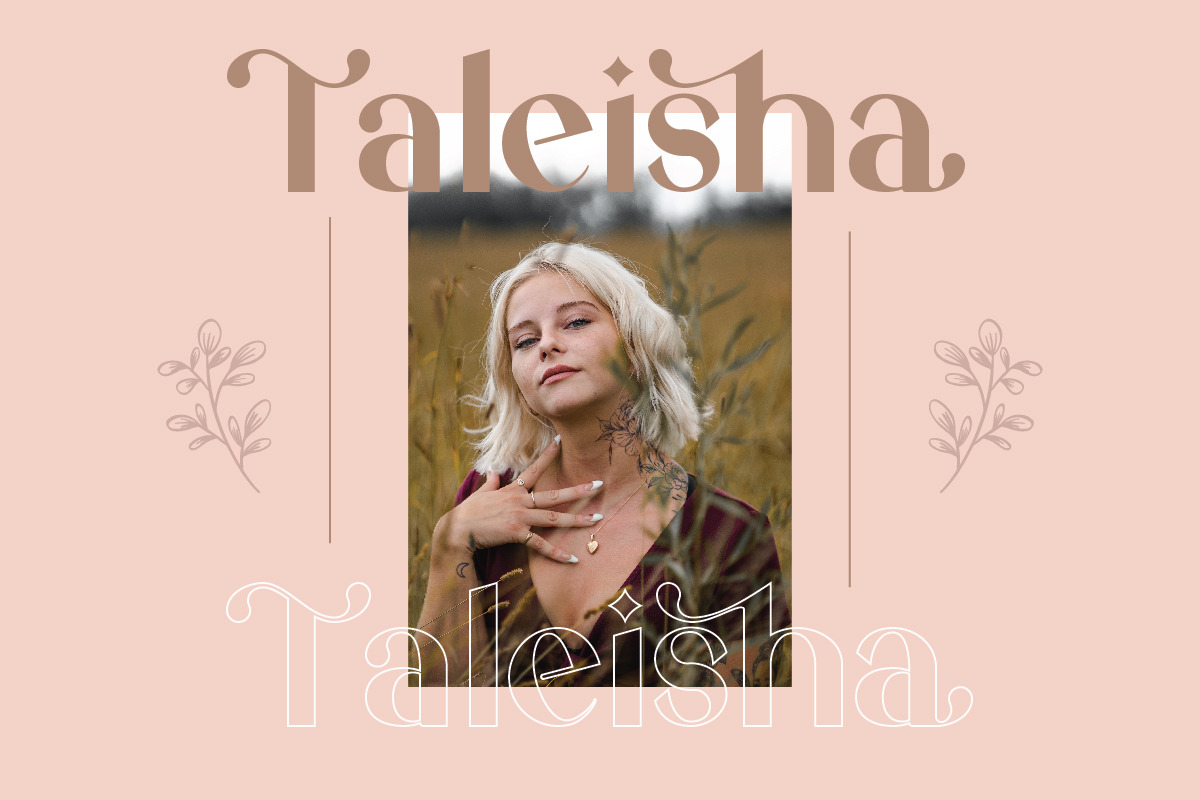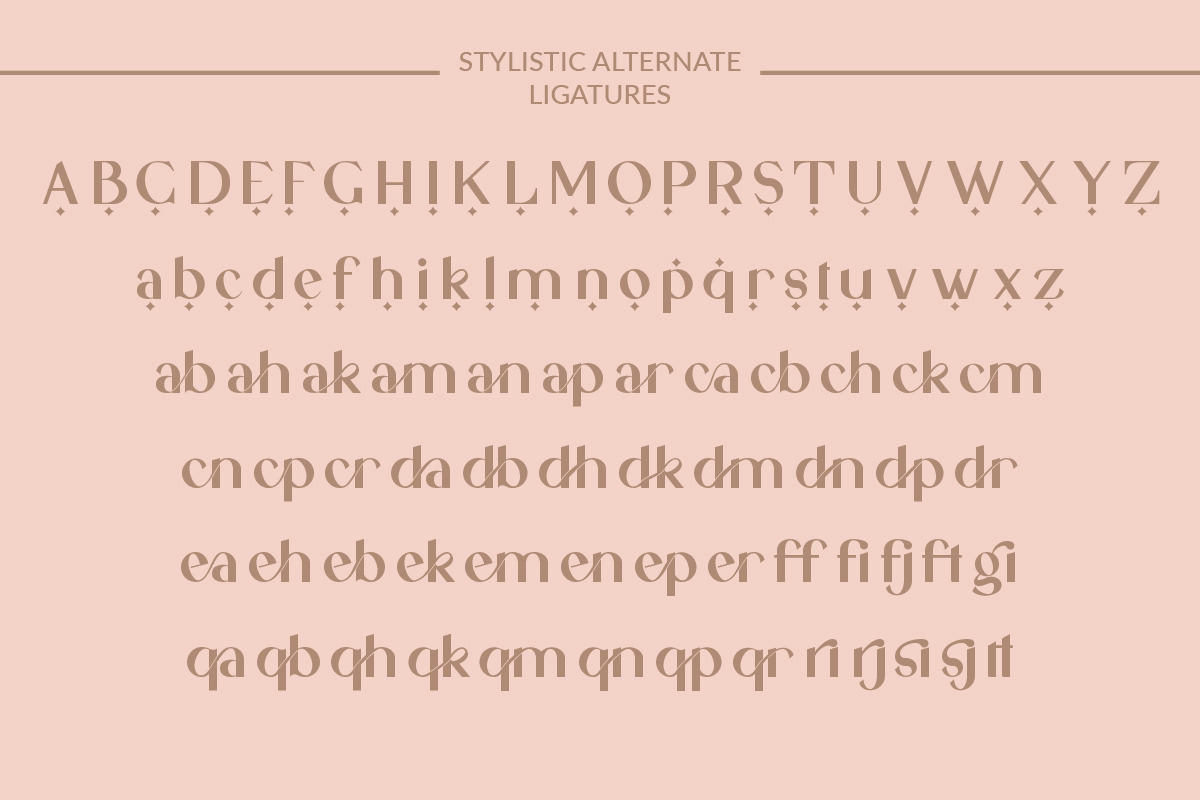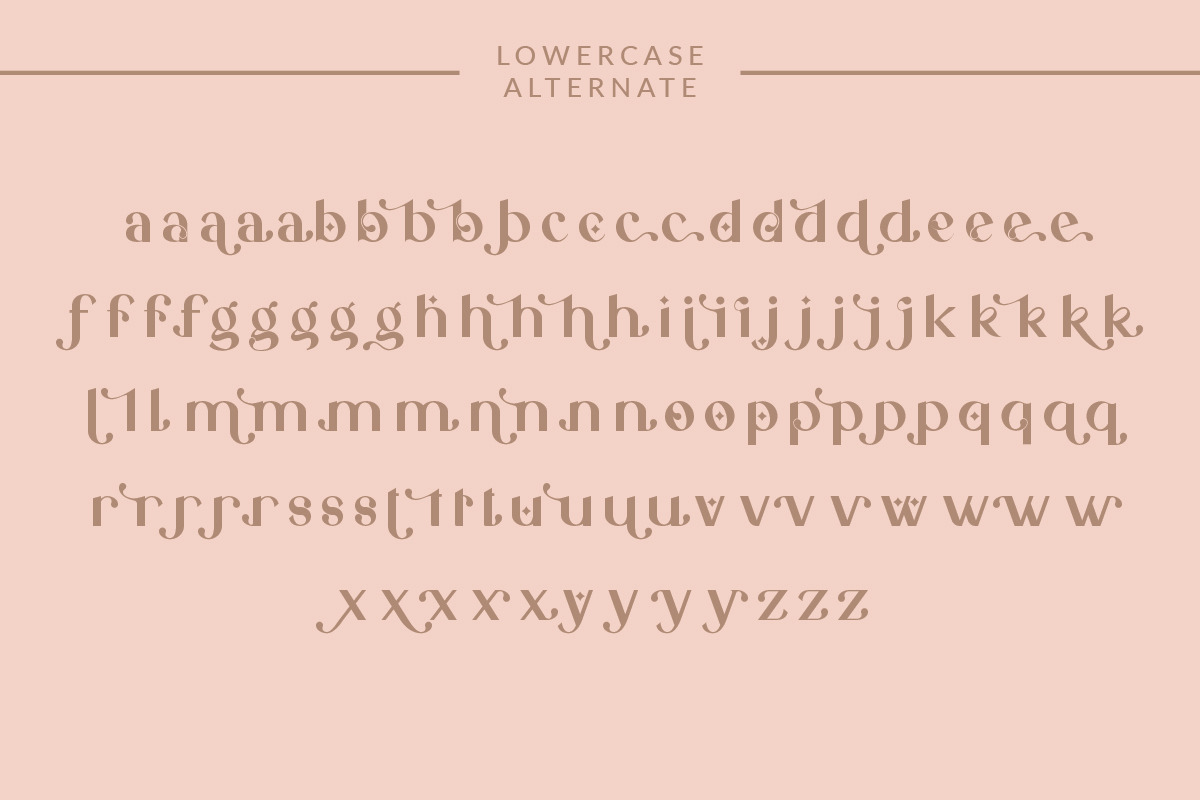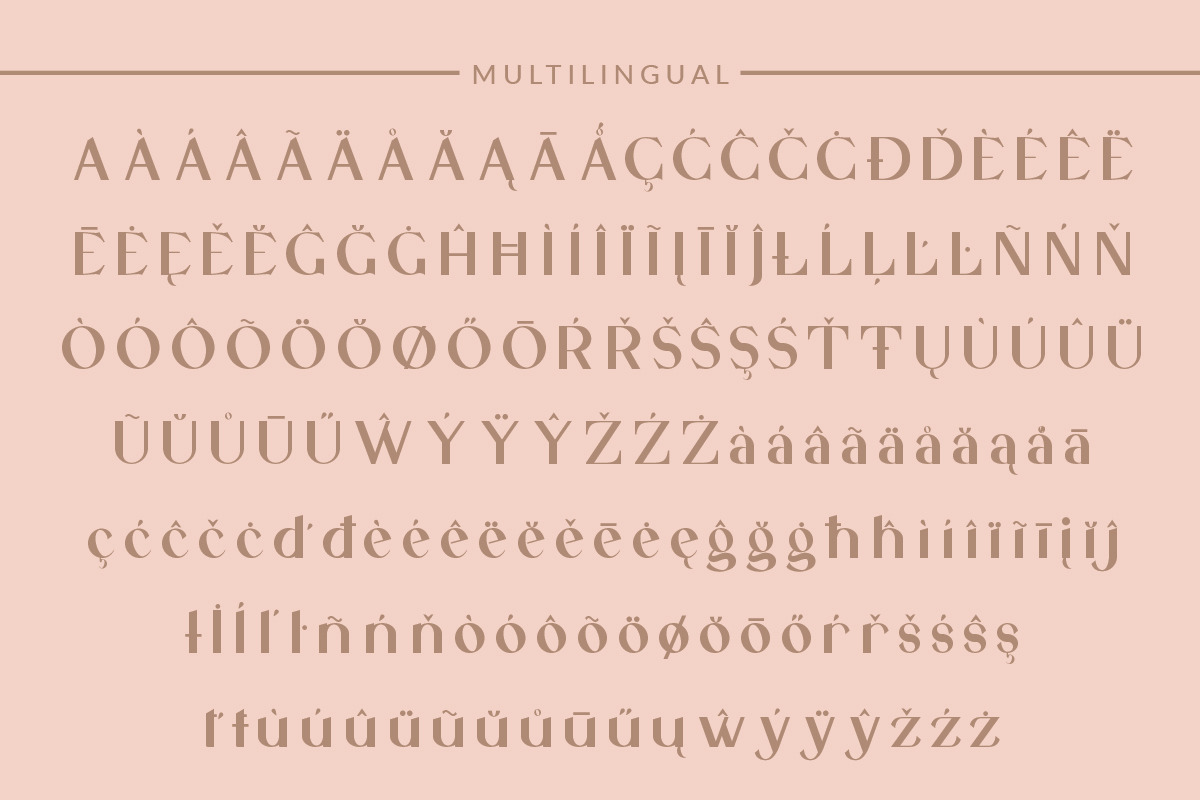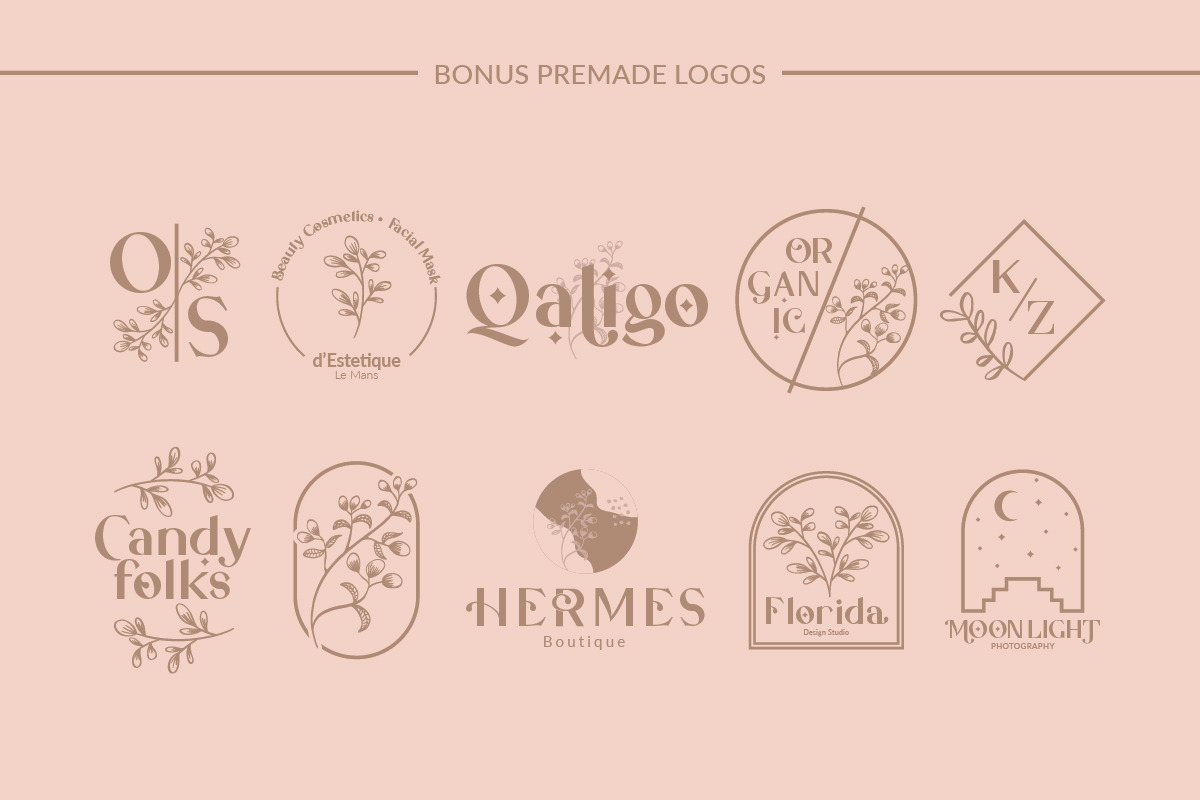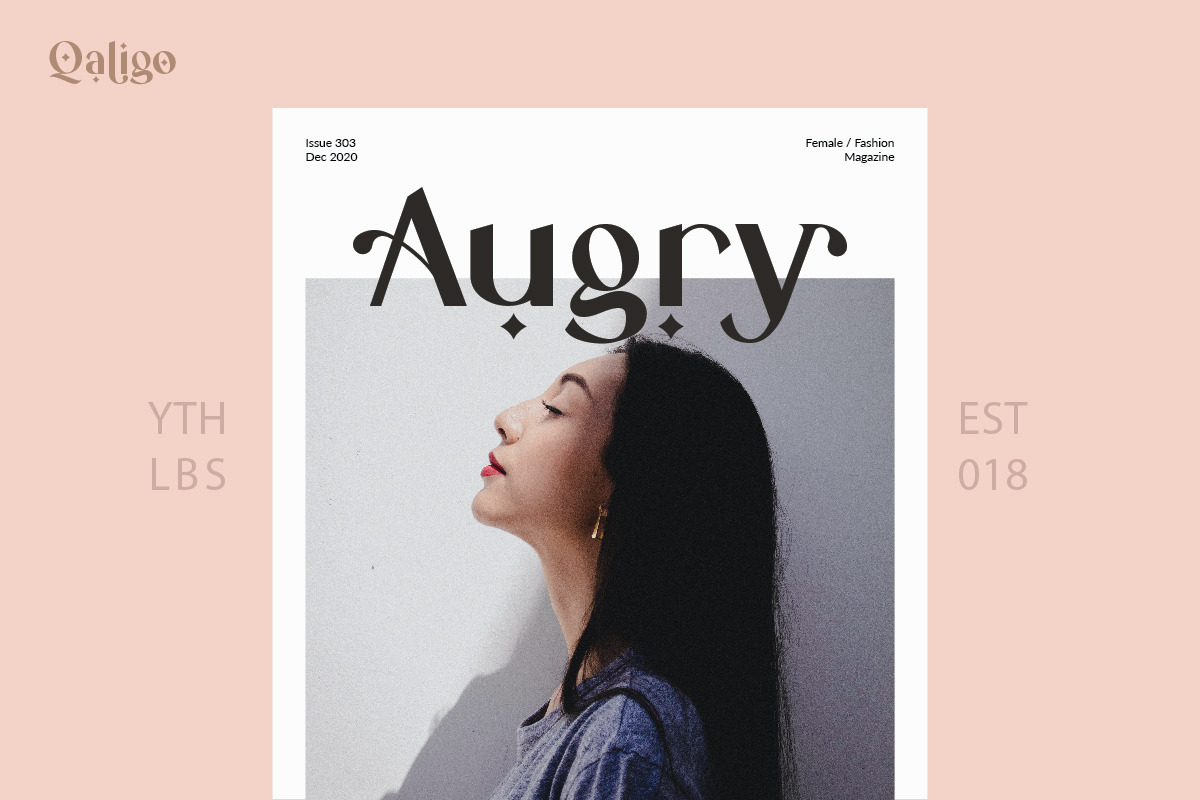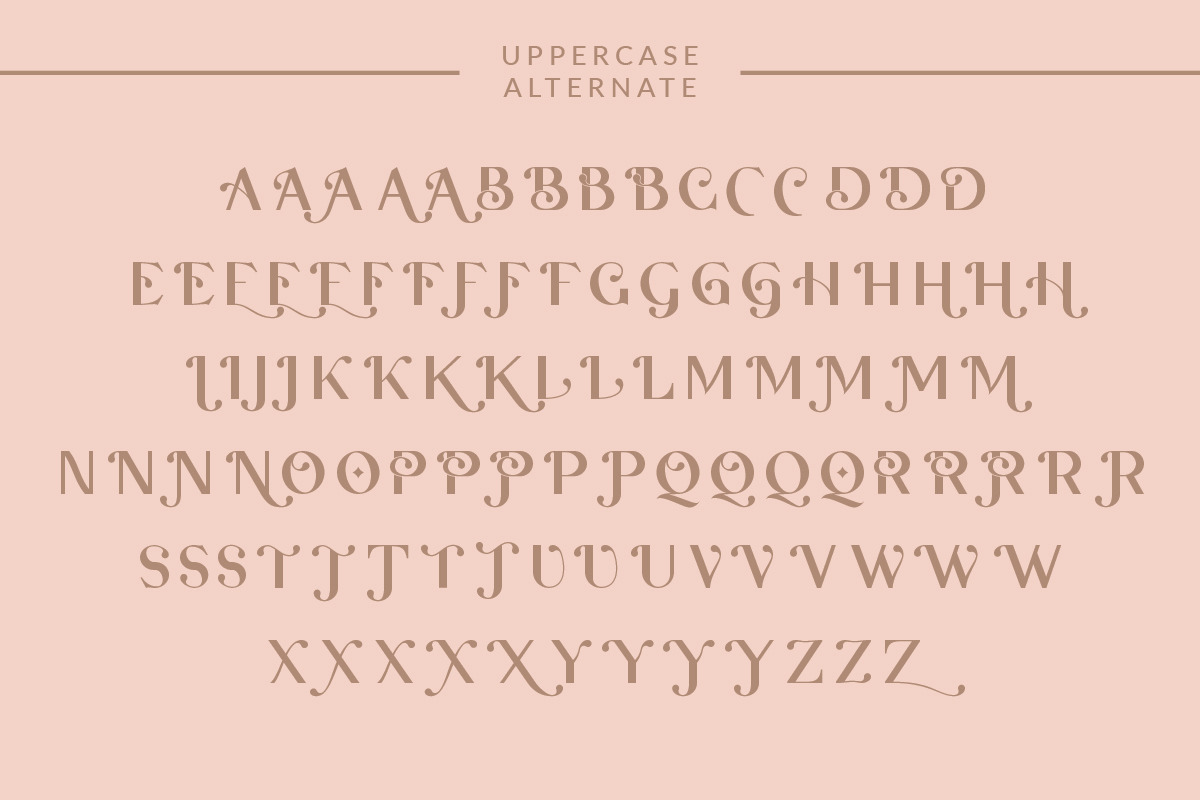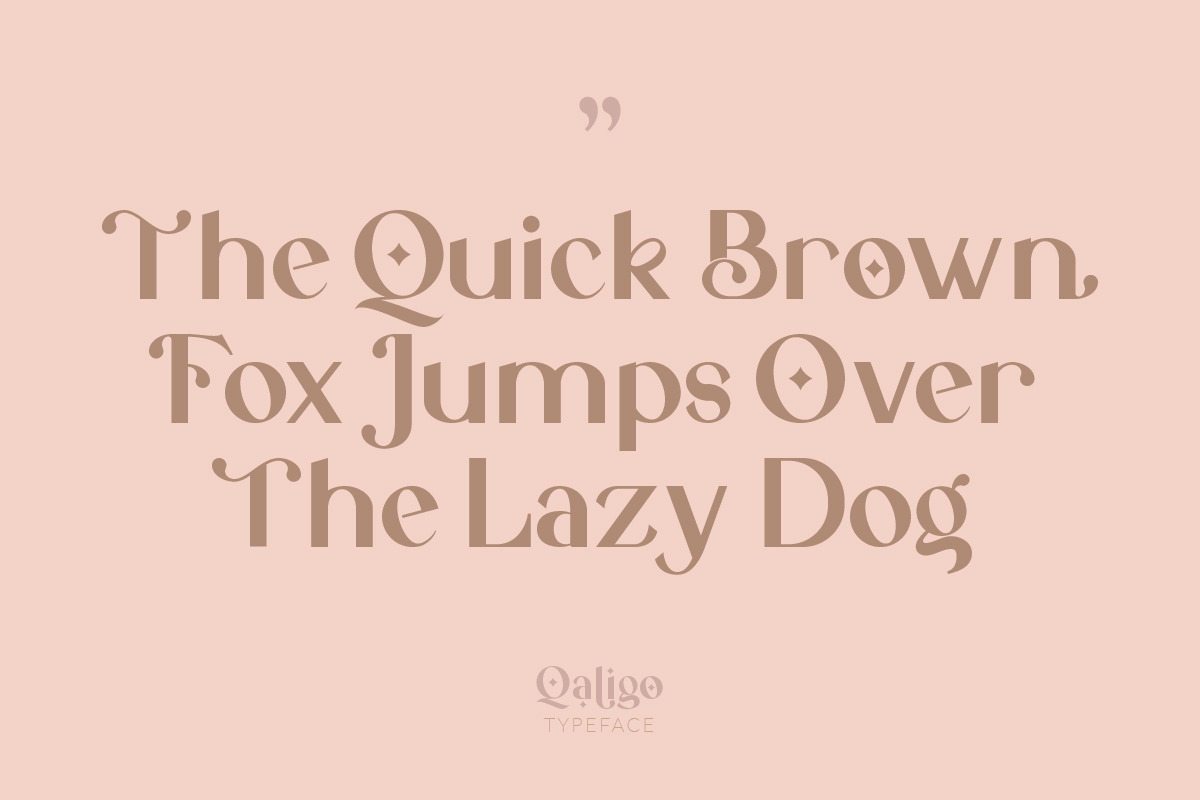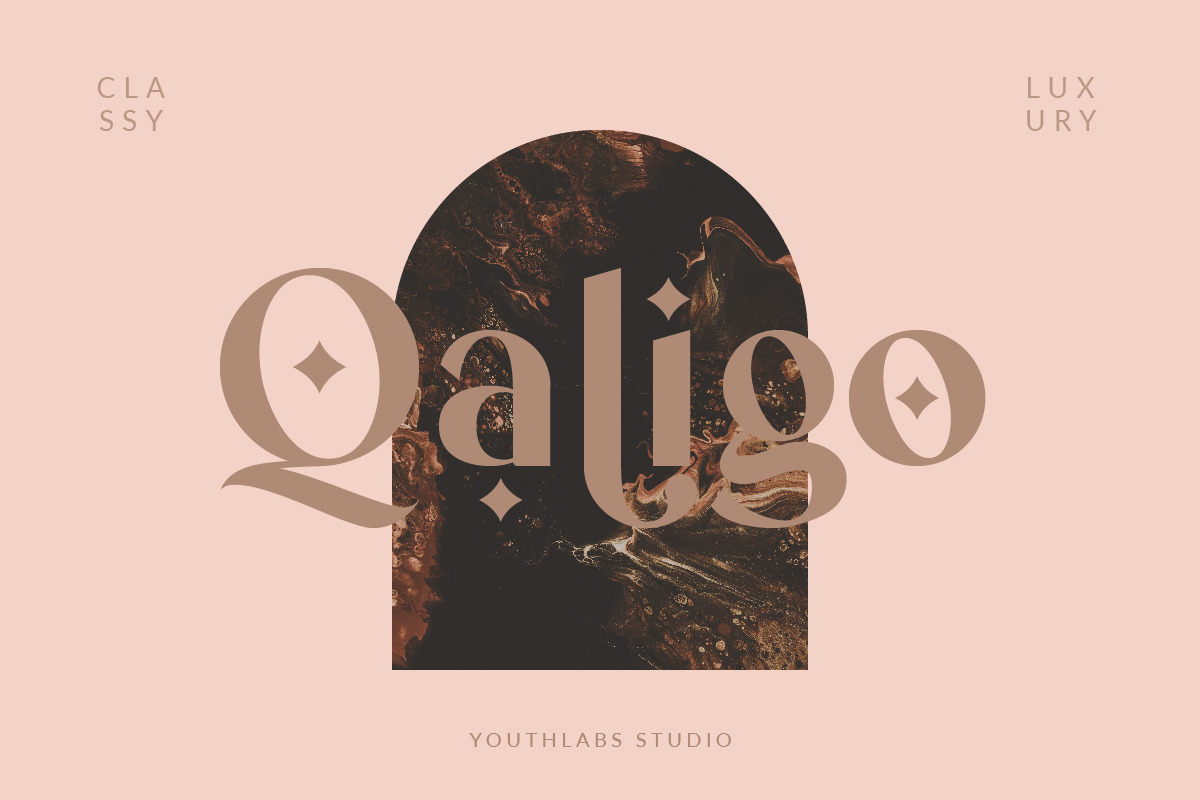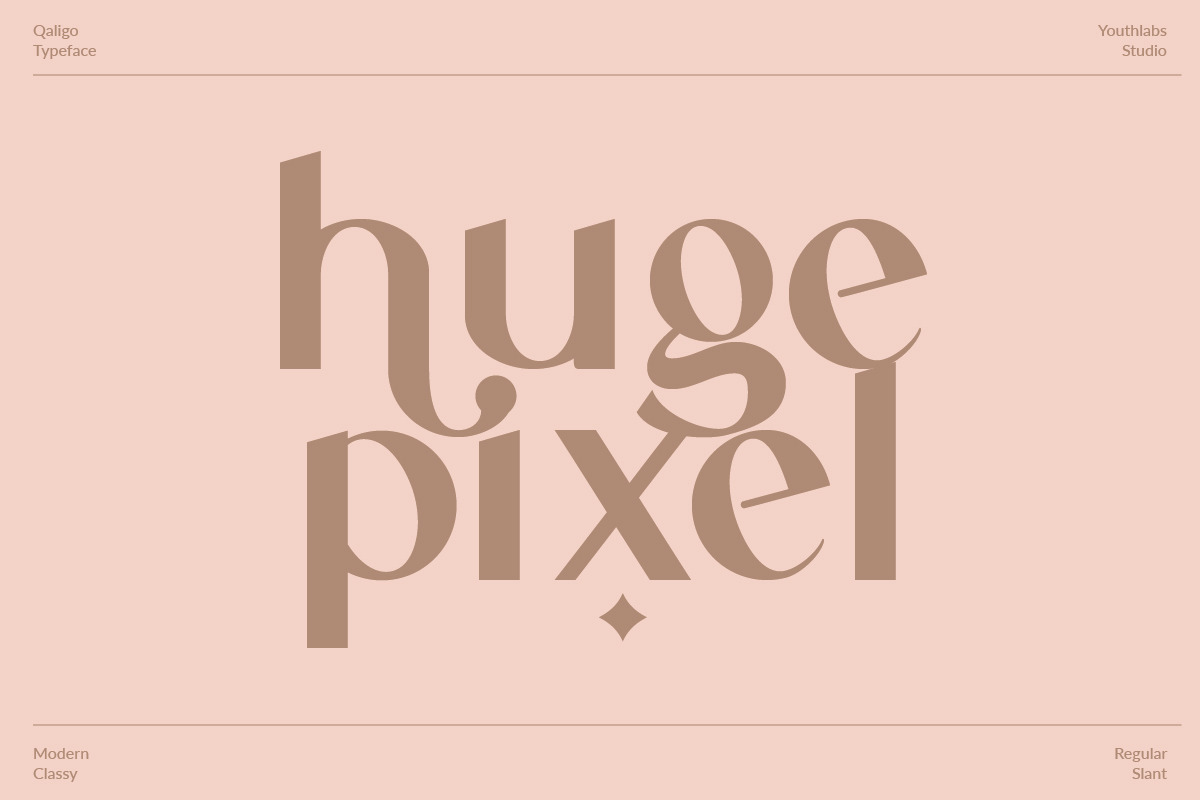
Qaligo Sans | Elegant Font
Introducing Qaligo Sans Font - A Brand New Sans Font with Luxury Shape, More Opentype Feature, more neat curves
Qaligo Sans Font Inspired by Modern and Luxury Typography. Qaligo Sans Font is a very versatile font. you can use this font to various design. Basics can improve more than 250 alternates character where can collaborate with premade logos.
Qaligo Sans Font support 24 Language : Afrikaans Albanian Catalan Croatian Czech Danish Dutch English Estonian Finnish French Hungarian Italian Lithuanian Maltese Norwegian Polish Portugese Slovak Slovenian Spanisch Swedish Turkish Zulu
What's the Feature ?
- More than 100 Uppercase Alternate
- More Than 100 Lowercase Alternate
- 24 Language Support
- Stylistic Alternate